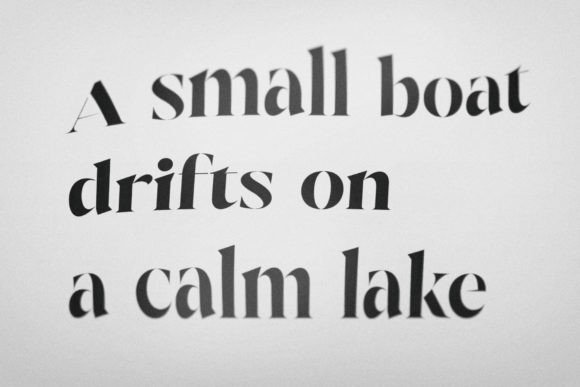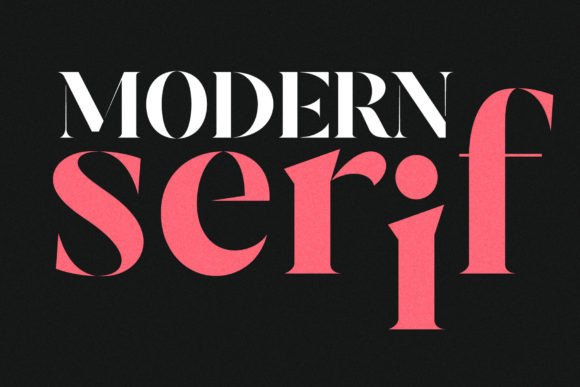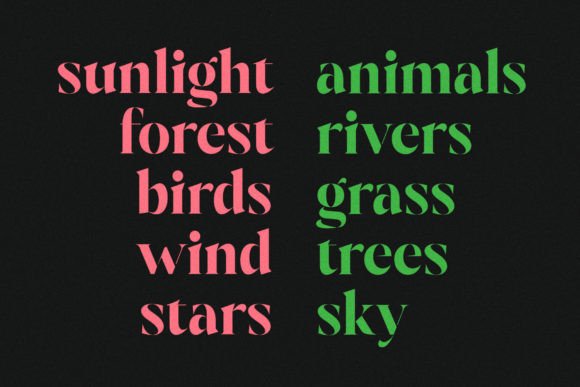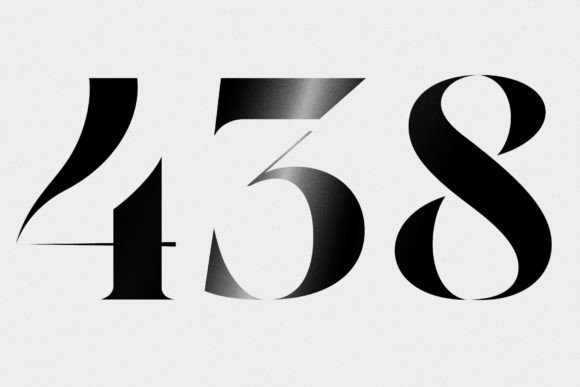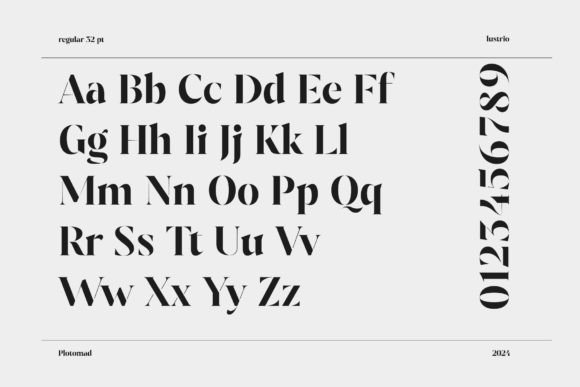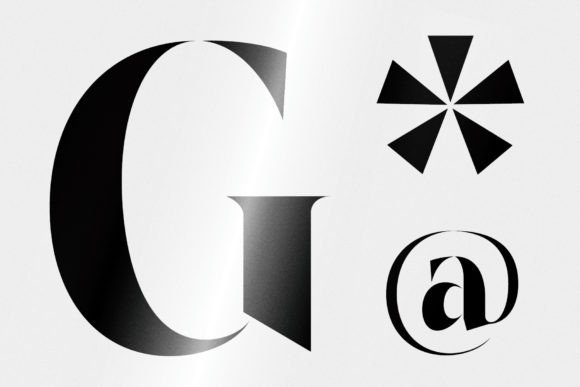
Introduction to Lustrio Font
Have you ever stared at a blank page, eager to bring your creative vision to life, but struggling to find the perfect font to set the tone? I’m sure we’ve all been there. The right font can make all the difference in capturing your audience’s attention and conveying your message. That’s where Lustrio Font comes in – a bold and elegant display font designed to captivate and impress.
With its high contrast and striking style, Lustrio Font is perfect for making headlines, advertisements, and packaging stand out. Its sophisticated design adds a touch of luxury to any project, ensuring your message is both powerful and memorable. Whether you’re working on a high-quality creative project or simply need a design resource to elevate your brand, Lustrio Font is a valuable addition to your toolkit.
Key Features of Lustrio Font
- Unique, stylish design ideal for modern and minimalist design projects
Honest Review: Lustrio Font
I recently had the opportunity to work with the Lustrio Font, and I must say it’s been a game-changer for my creative projects. The high-quality design makes it perfect for any project that requires a touch of elegance.
- ✨ Clean and modern design: The Lustrio Font has a clean and modern design that makes it easy to read and understand.
- ✨ Transparent background: The font has a transparent background, making it easy to use in designs where a background is required.
While the Lustrio Font is a great addition to my design resources, there are a few limitations I’d like to mention. ⚠️ The font is only available in a limited number of weights, which can make it difficult to create a consistent look across different elements of a design.
Overall, I’m really impressed with the Lustrio Font. It’s a high-quality design resource that’s perfect for any creative project. The free download and transparent background make it easy to use, and the clean design makes it easy to read and understand. While there are a few limitations, I’d highly recommend the Lustrio Font to any designer looking for a modern and elegant font.
How to Use Lustrio Font
To get the most out of the Lustrio Font, use it in conjunction with other design elements to create a cohesive look. Experiment with different font sizes, colors, and styles to find the perfect combination for your project.
The Lustrio Font is commonly used for creating graphics, logos, and other visual elements for websites, social media, and marketing materials. Its transparent background makes it perfect for use on top of images or other design elements.